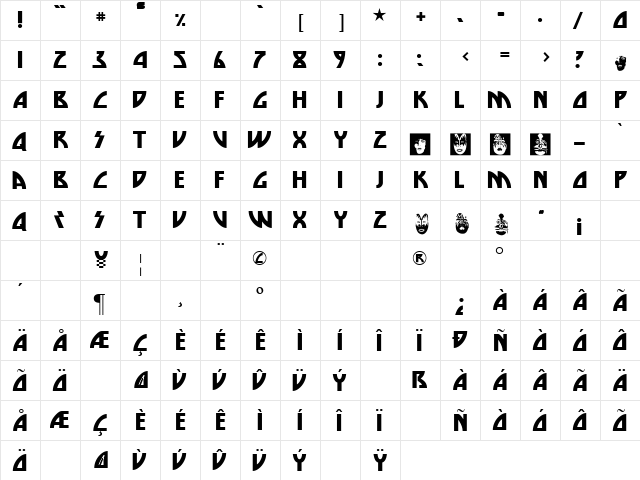
Die Nasty Regular
| Foundry | Larabie Fonts |
Design Context for Die Nasty Typeface
Die Nasty is a composed and adaptable typeface that performs quietly and consistently across a wide range of design contexts.